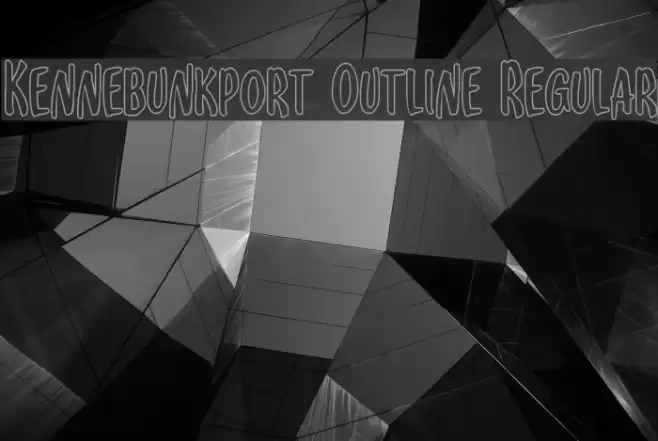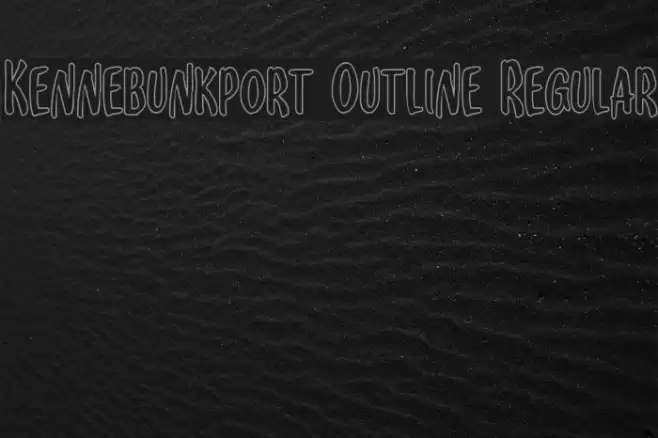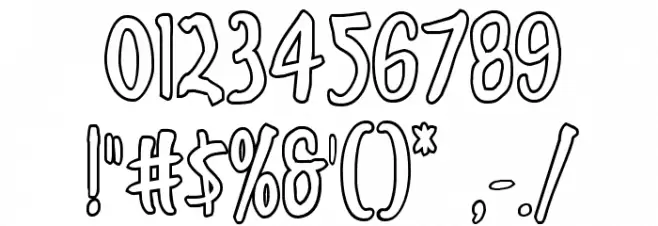
Kennebunkport Outline Regular Font
Kennebunkport Outline Regular Description
This font features a playful and bold outline style, characterized by its hand-drawn appearance. The letters are uppercase and lowercase, with a consistent, rounded outline that gives them a casual and friendly look. The numbers and special characters follow the same style, ensuring a cohesive appearance across all glyphs. The font's design is both eye-catching and approachable, making it suitable for a variety of creative projects. Its unique outline style adds a layer of depth and interest, making it stand out in any design context.
A playful, hand-drawn outline font with a bold and friendly appearance from Comic fonts.
- Proposed Projects: Ideal for children's books, playful branding, posters, and creative invitations.
- Overall Style: Playful, Casual